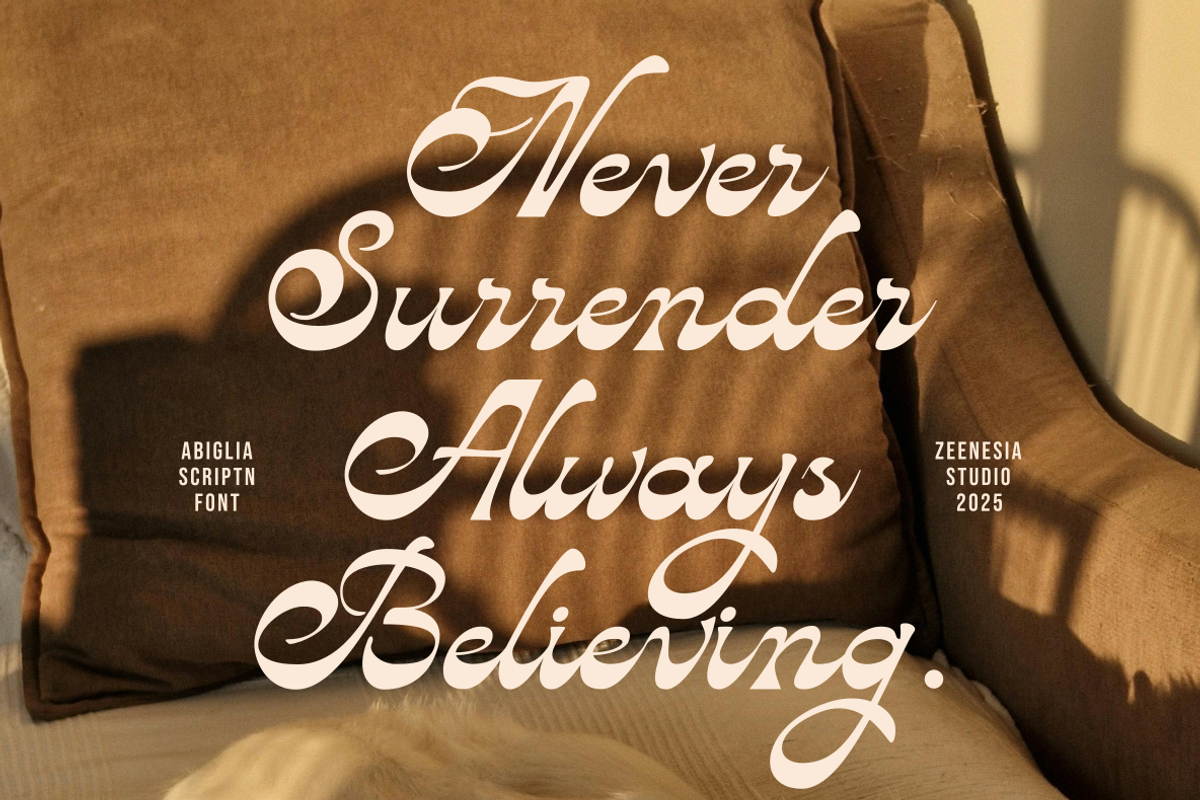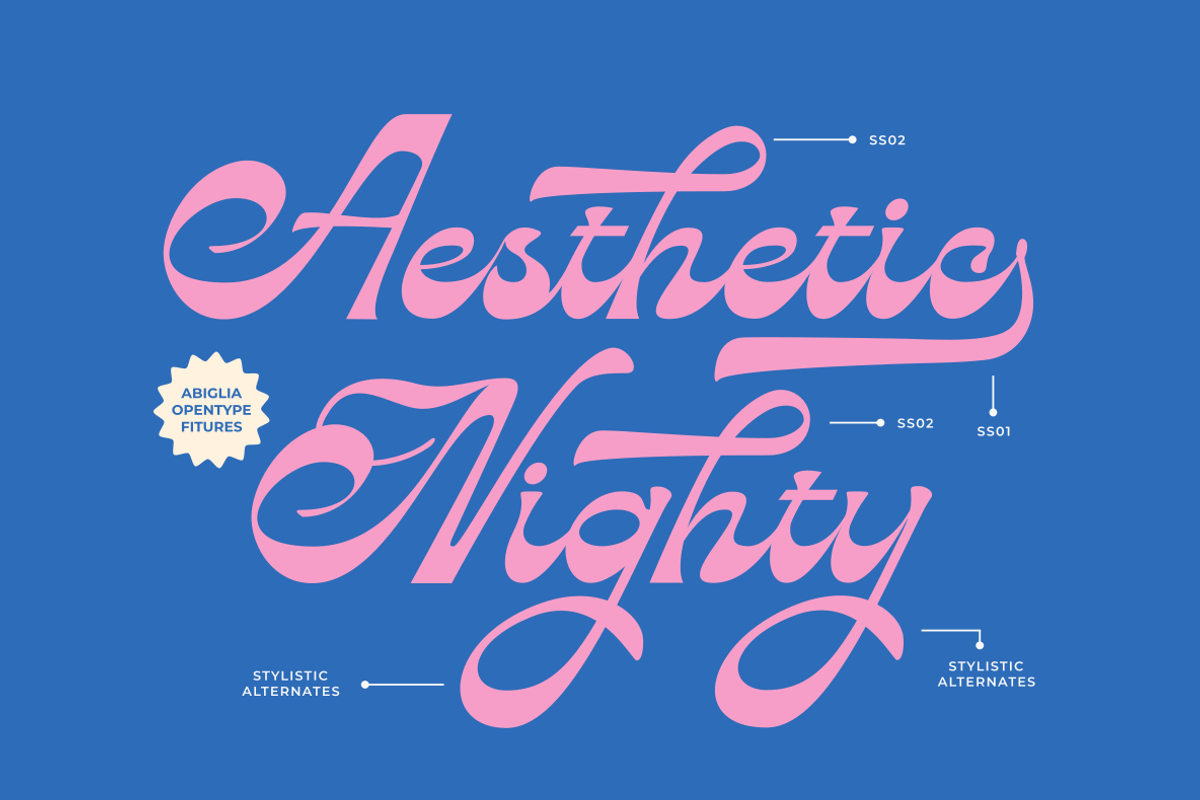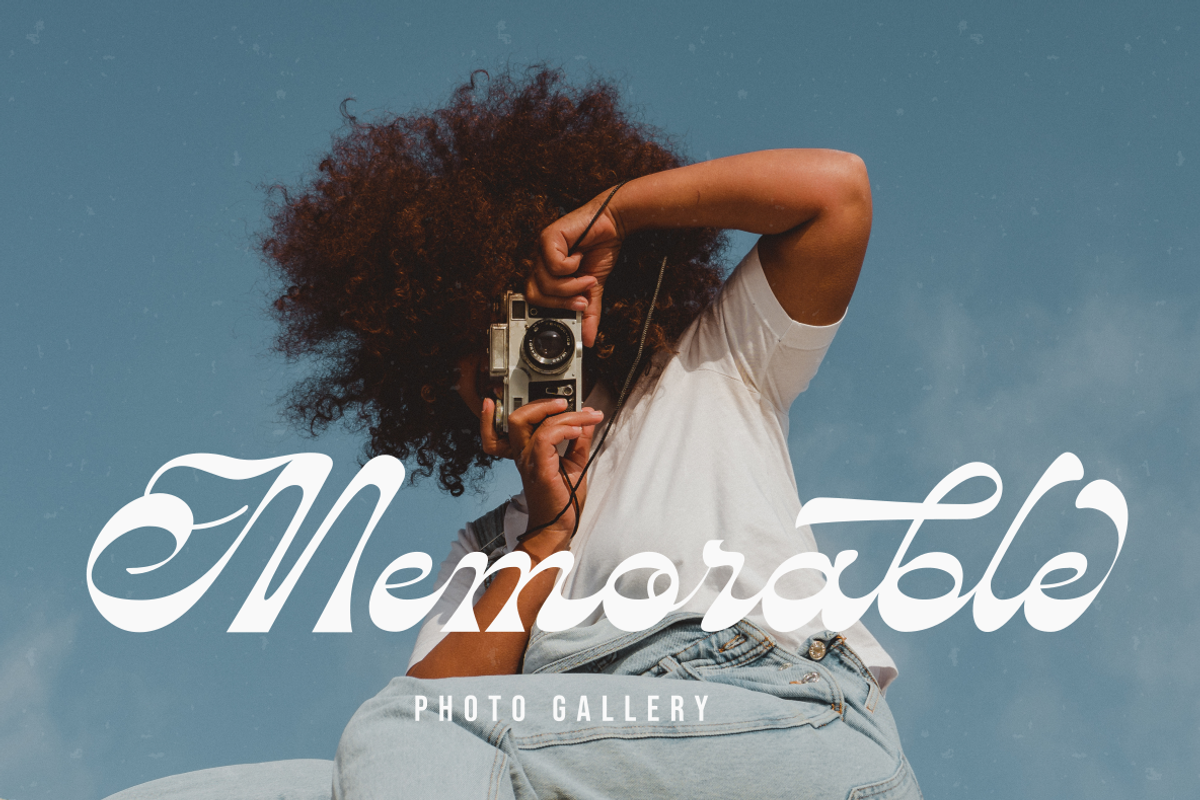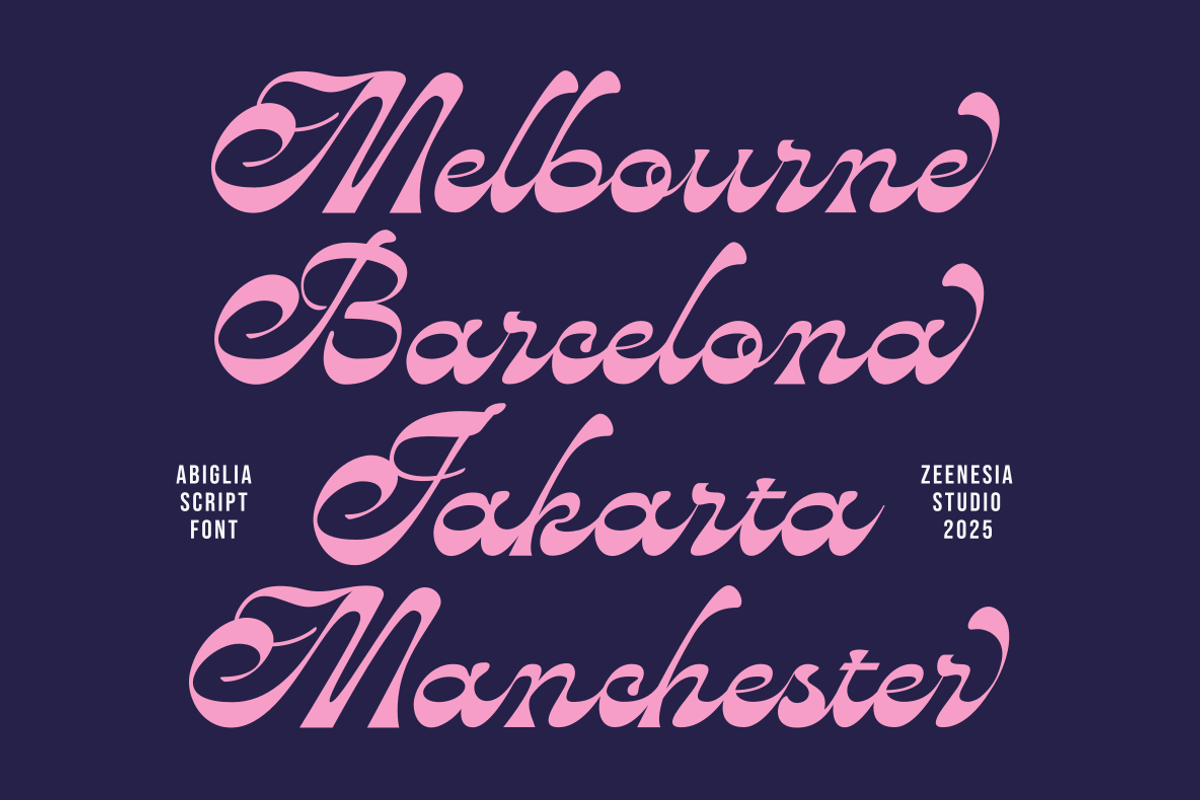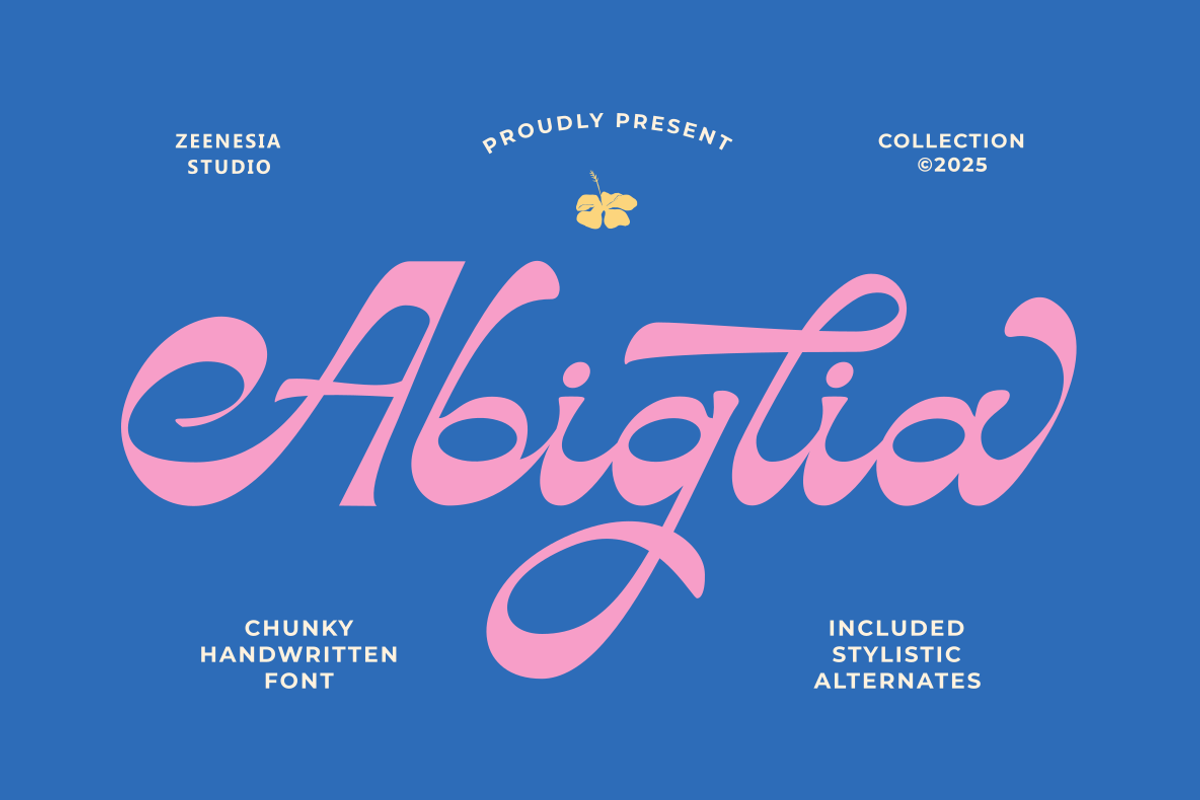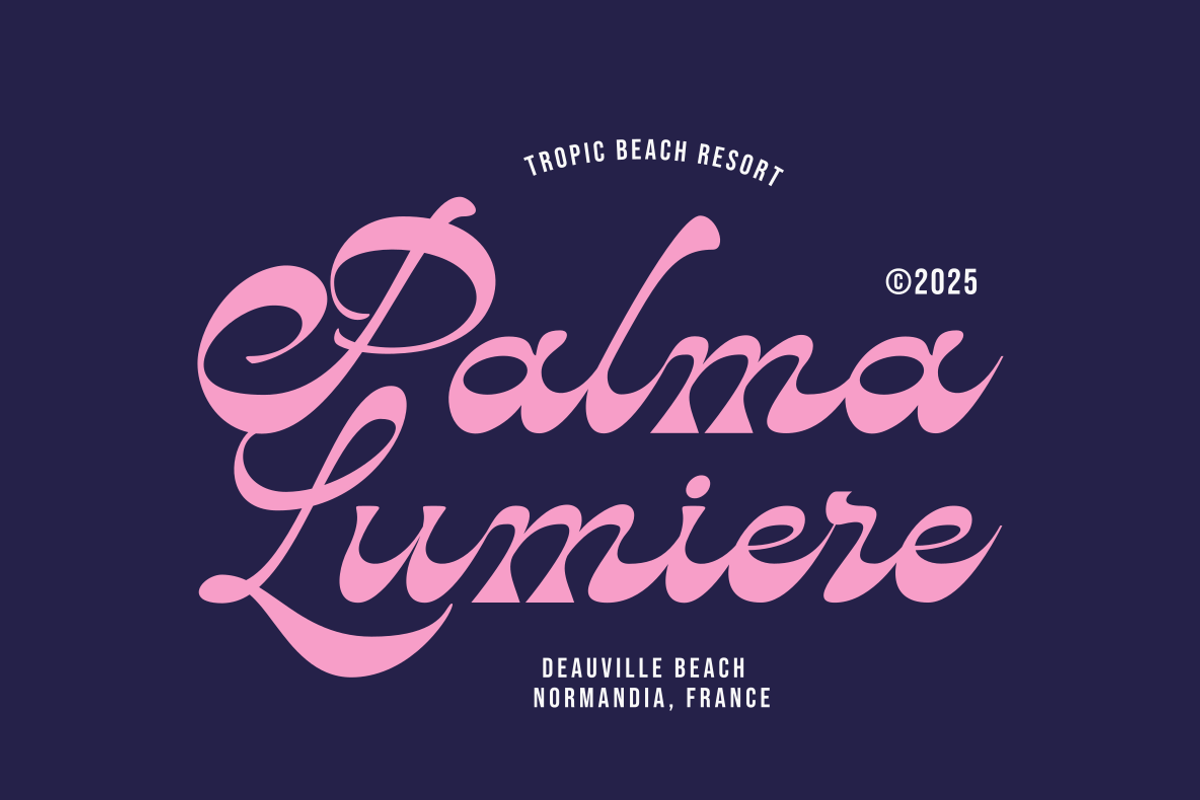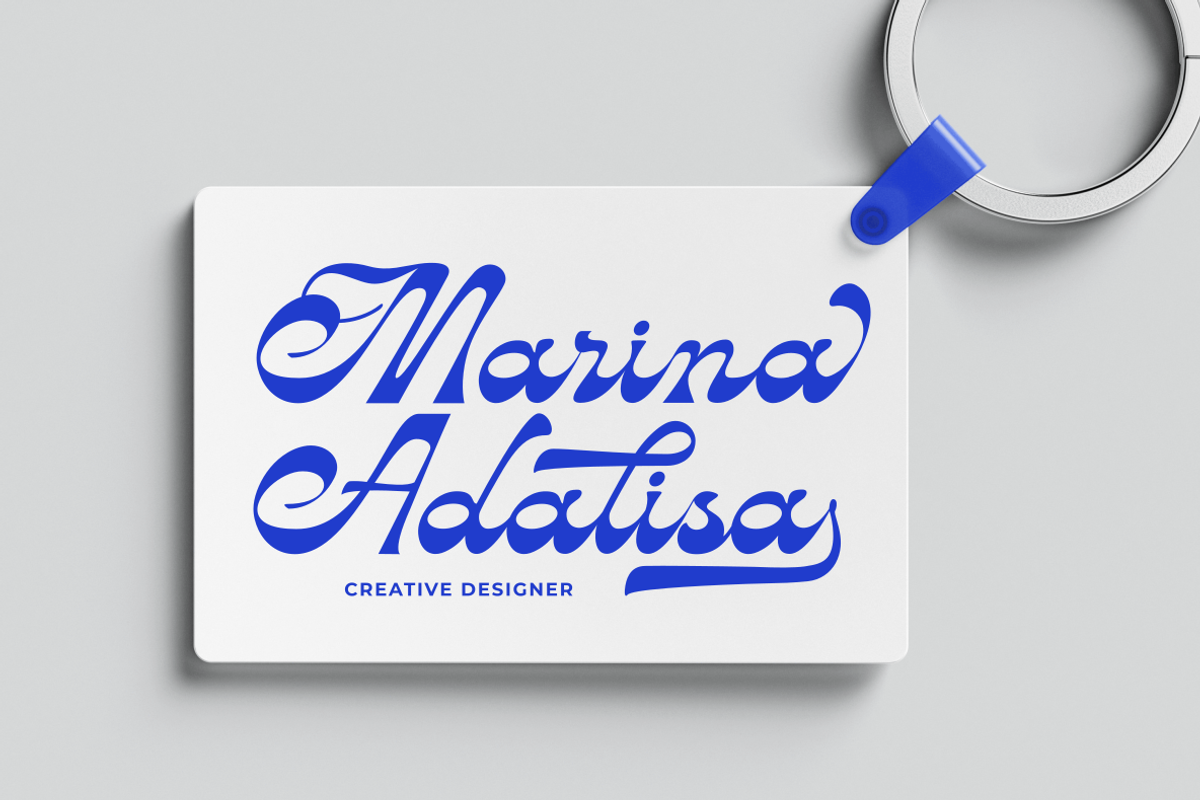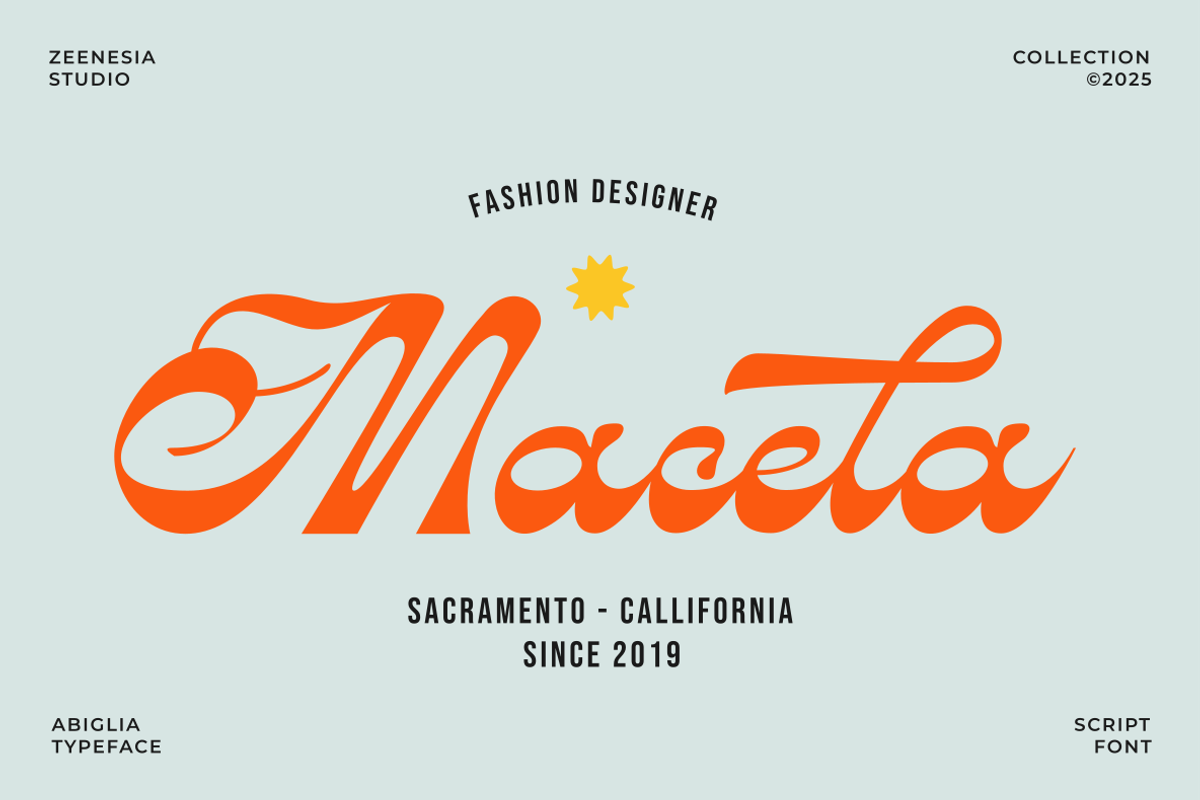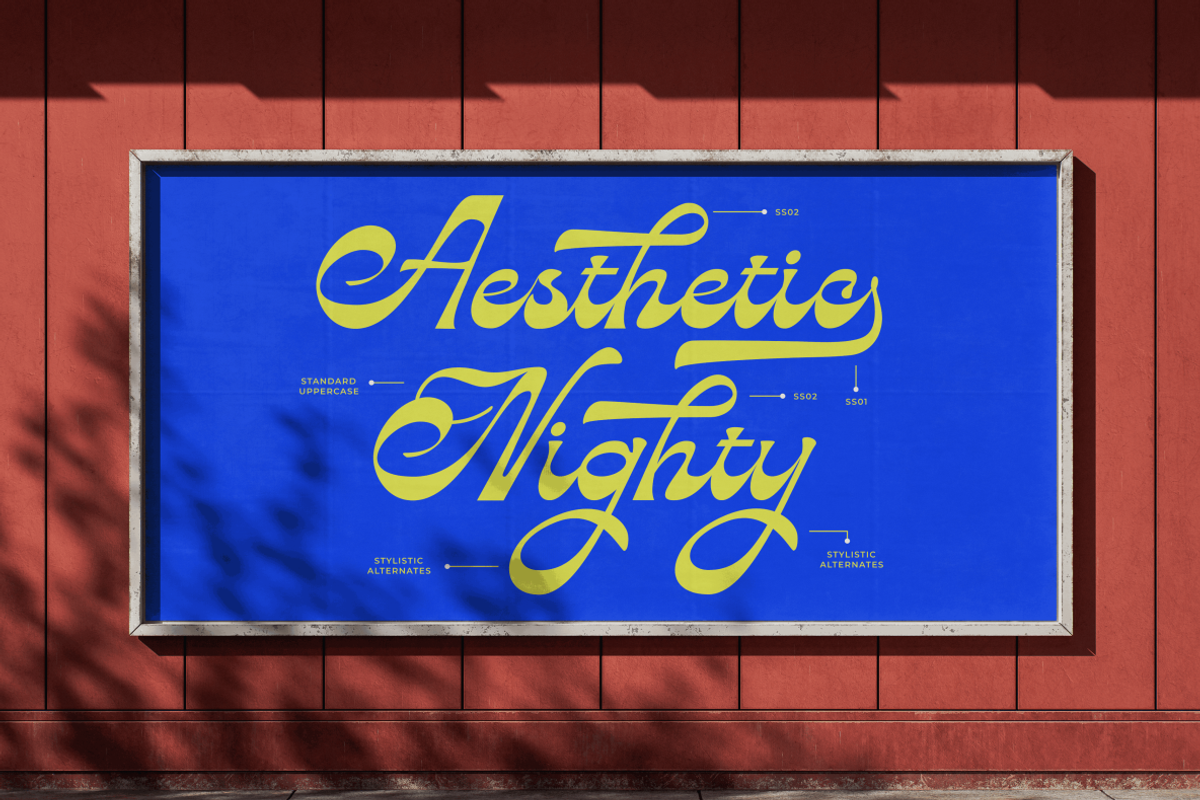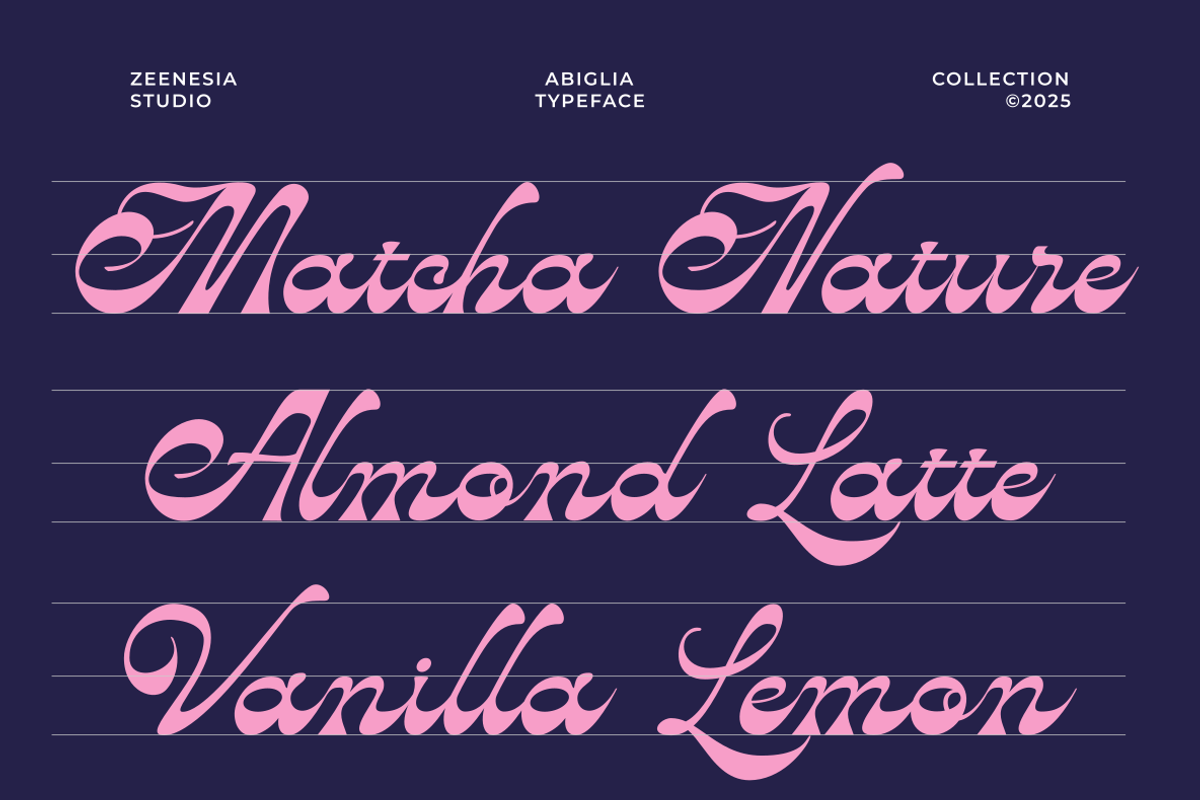
Abiglia
Abiglia Typeface ✨ Abiglia is a hand-drawn script font that combines elegance and playfulness in perfect harmony. With flowing curves and bold strokes, it captures the beauty of handcrafted lettering while keeping a modern and artistic look.
Equipped with stylistic alternates, Abiglia gives you the freedom to explore different letter variations, making your designs more expressive and unique. It’s a versatile font, ideal for branding, logos, packaging, wedding invitations, quotes, posters, and social media graphics.
Bring a sweet, stylish, and memorable vibe to your creative projects with Abiglia Typeface.